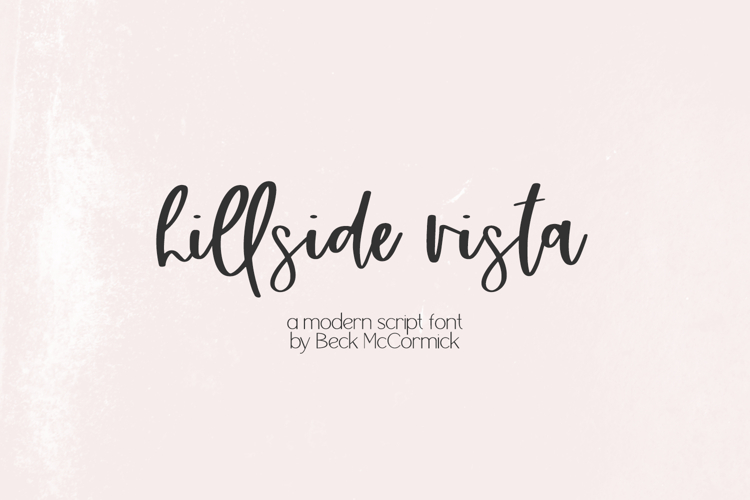
Hillside Vista Script is a modern calligraphy font that is slightly messy and very casual. Hillside Vista will be a great fit for your modern home decor projects, or logo & branding projects, as well as social media or marketing graphics.
Hillside Vista includes:
- 13 ligatures - bb, cc, dd, ee, ff, gg, ll, mm, nn, pp, rr, ss, tt